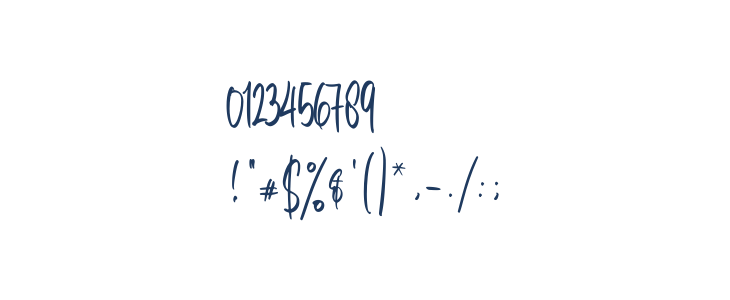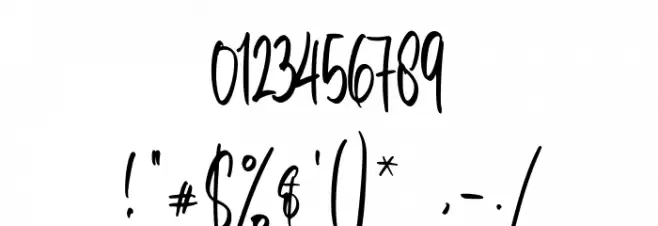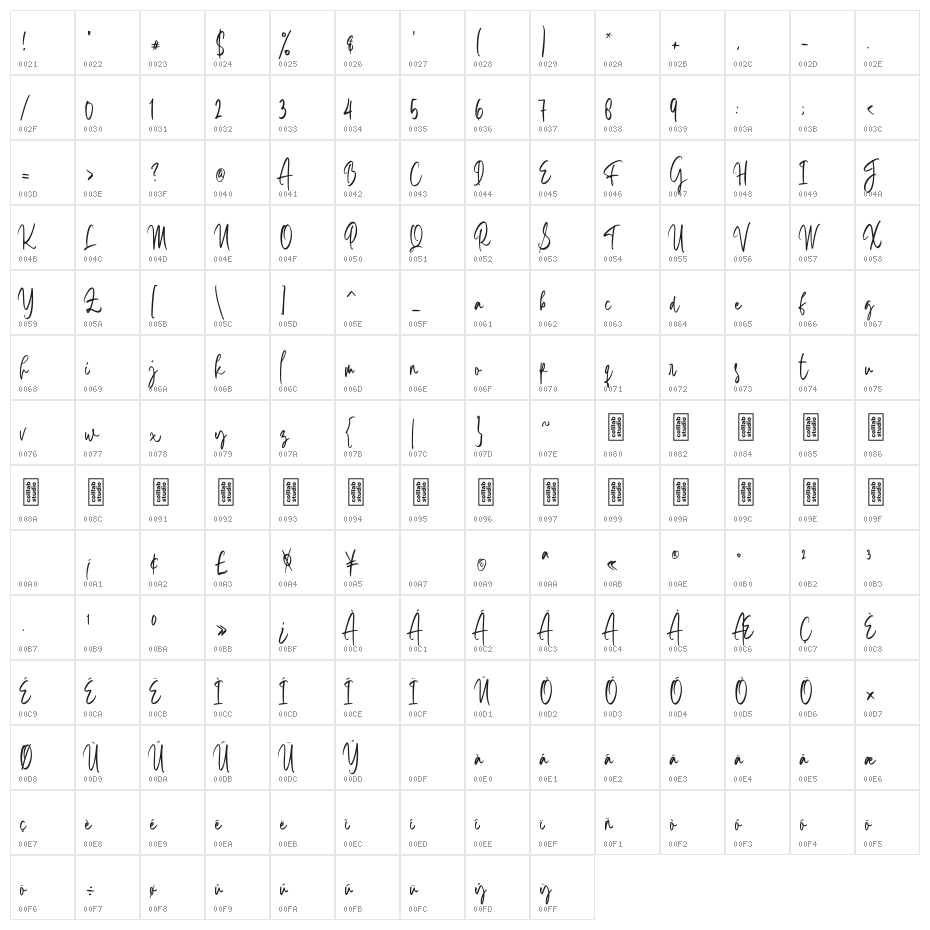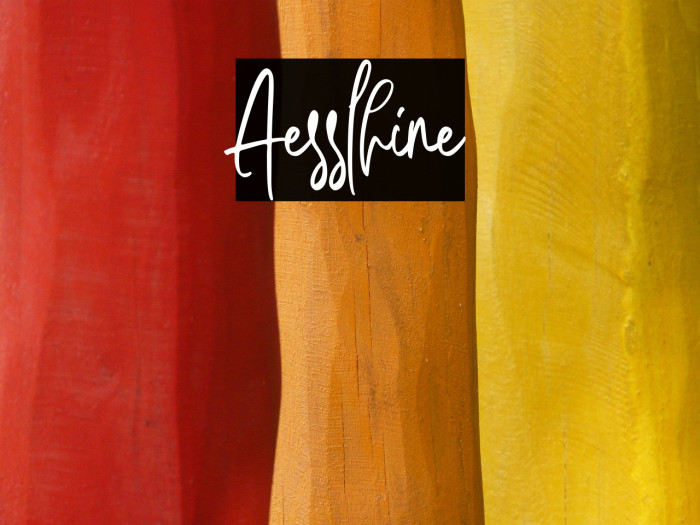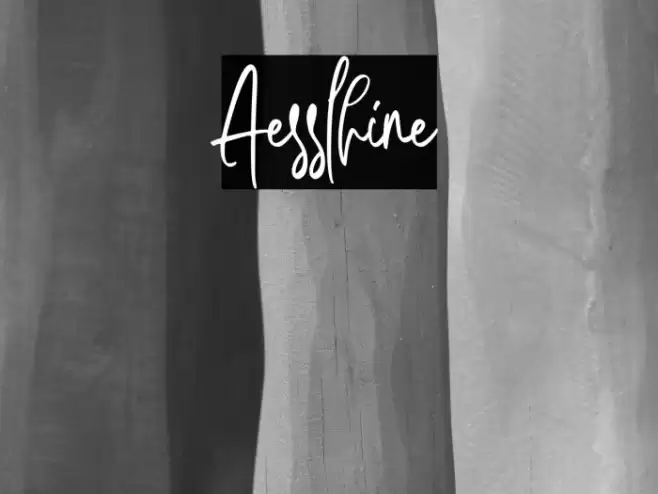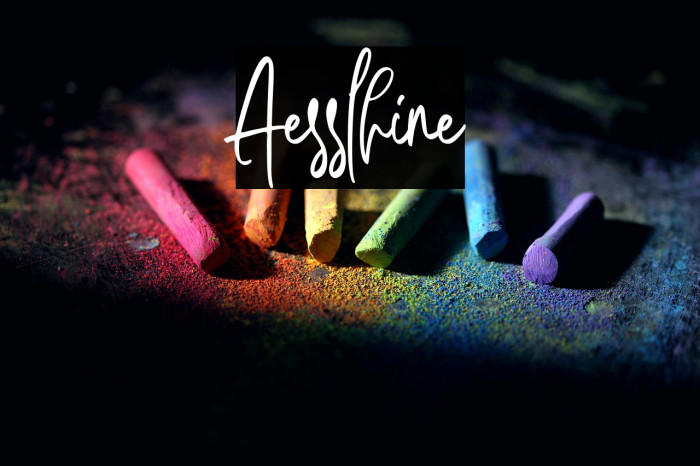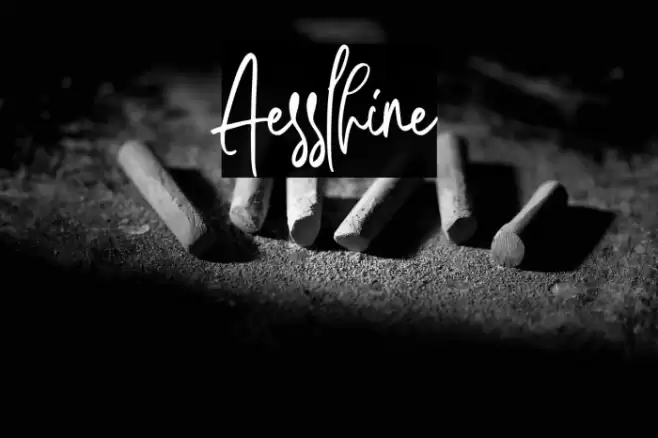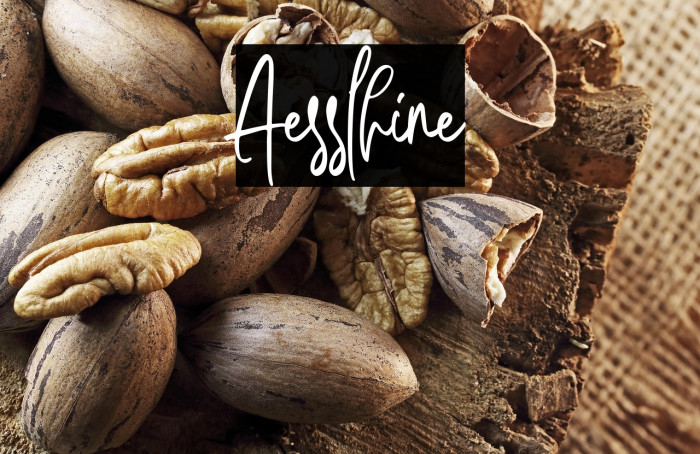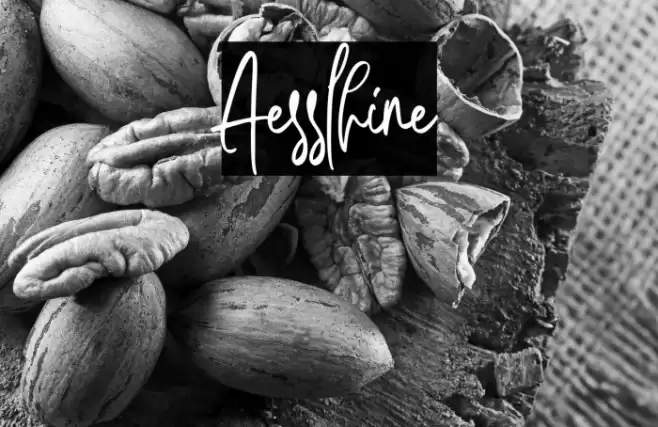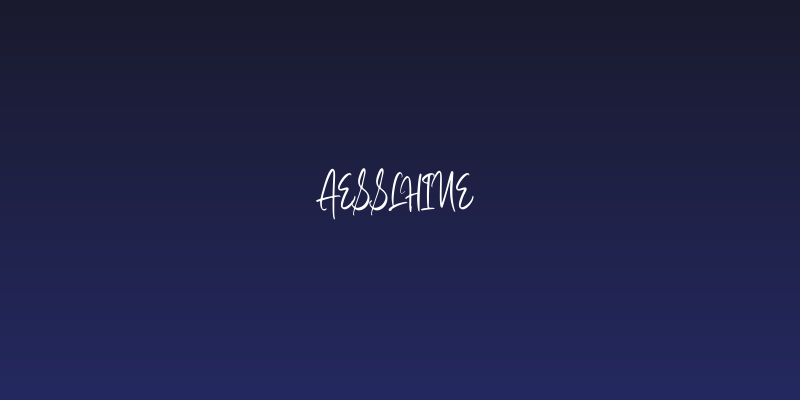
Aesslhine Font
Aesslhine Description
This font features a dynamic and expressive handwritten style, characterized by its fluid and flowing letterforms. The uppercase letters are bold and slightly elongated, giving a sense of movement and energy. The lowercase letters maintain a consistent style, with smooth curves and a casual, yet elegant appearance. The numerals are distinct and easy to read, complementing the overall aesthetic. Special characters are creatively integrated, adding to the font's versatility. This font's unique style makes it suitable for a variety of creative projects.